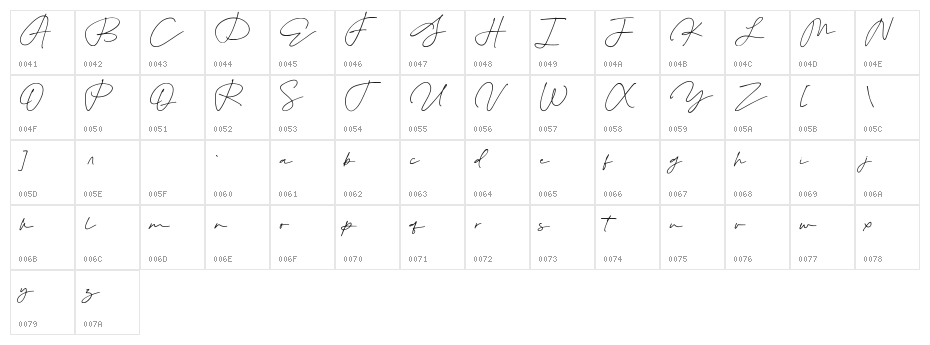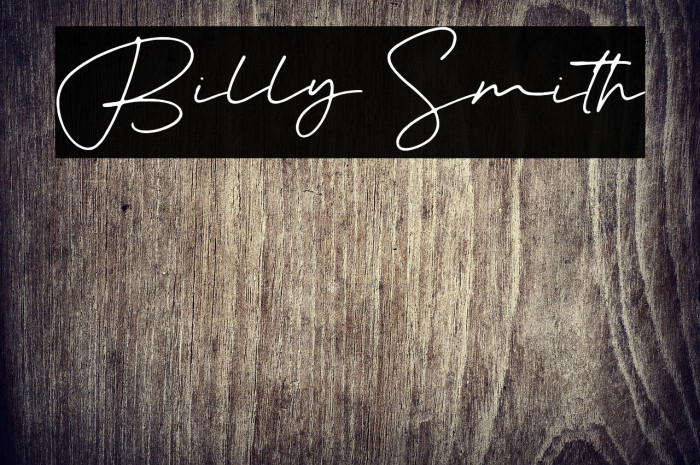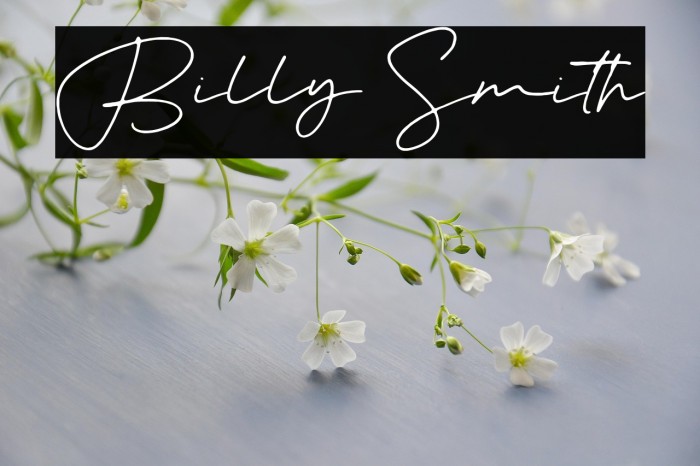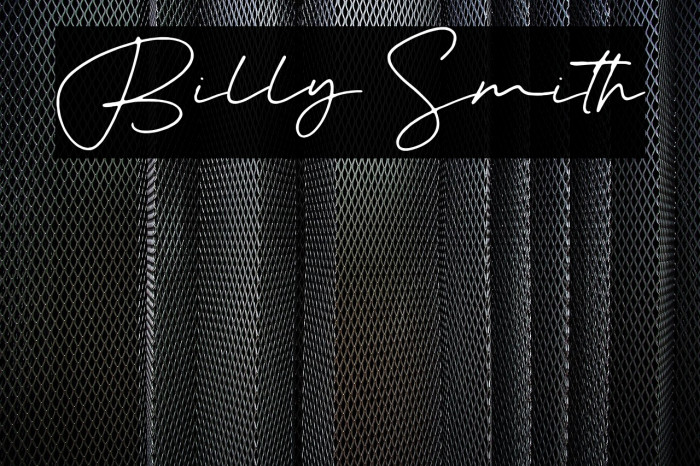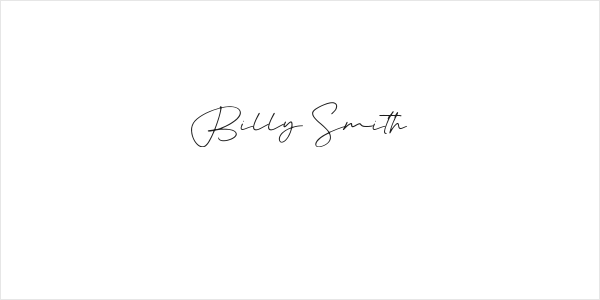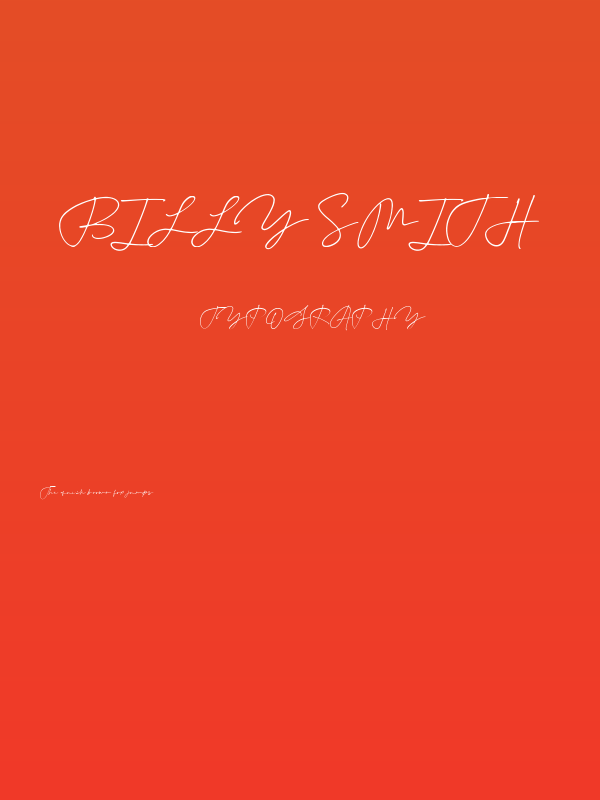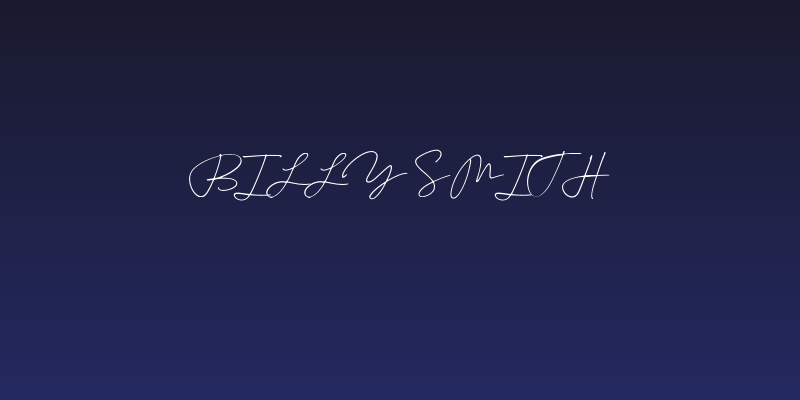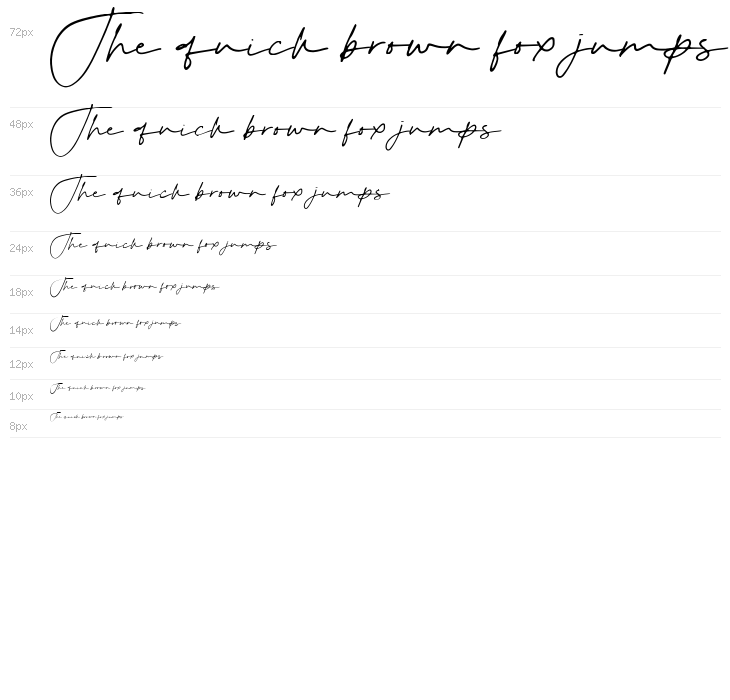
Billy Smith Font
Billy Smith Description
This font features a fluid, cursive style that mimics natural handwriting. The letters are interconnected, creating a seamless flow across words. The uppercase characters are elegant and slightly elongated, while the lowercase letters maintain a consistent height, adding to the font's readability. The strokes are smooth and have a slight variation in thickness, giving it a dynamic and lively appearance. This font is perfect for adding a personal touch to any design, making it ideal for invitations, greeting cards, and branding projects that require a handwritten aesthetic.
| Overall Style | Handwritten |
| Proposed Projects | Ideal for wedding invitations, personal branding, greeting cards, and any project requiring a personal, handwritten touch. |